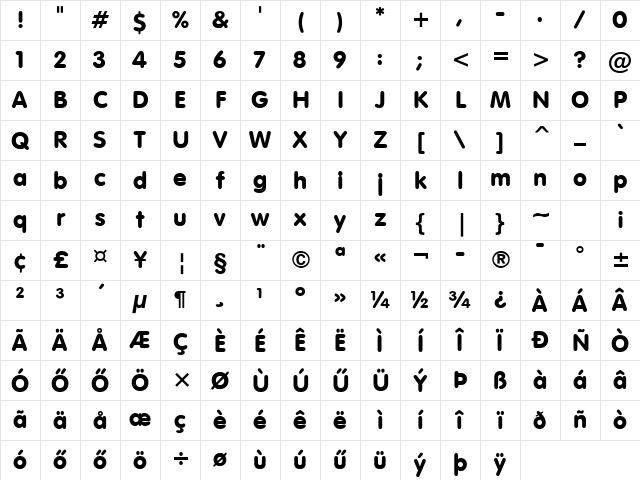
VAGRounded-HU Normal
Design Context for VAGRounded-HU
VAGRounded-HU softens its letterforms with rounded terminals, giving it an approachable, friendly quality that works well in consumer-facing and digital contexts.
Font Pairing: Pairs well with a rounded or humanist sans for body copy, maintaining the friendly tone without relying on VAGRounded-HU to carry extended reading.
Pro Tip: Use VAGRounded-HU for UI elements, app interfaces, and anywhere a friendly, approachable tone needs to be maintained without sacrificing clarity.